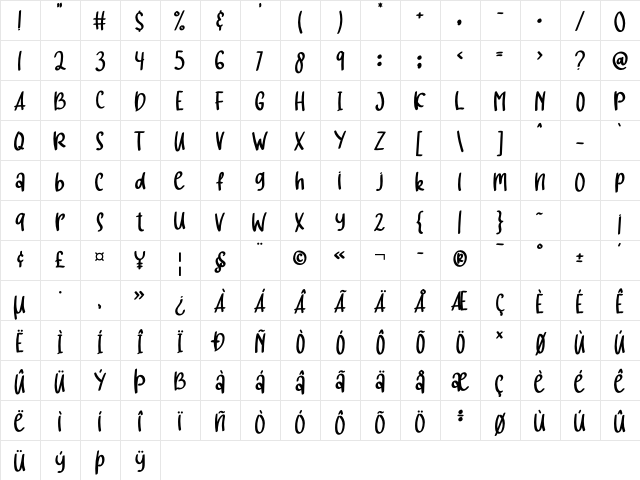
hello baby Regular
Designer: Heru Utama Putra
Design Context for hello baby
hello baby is a composed and adaptable typeface that performs quietly and consistently across a wide range of design contexts.